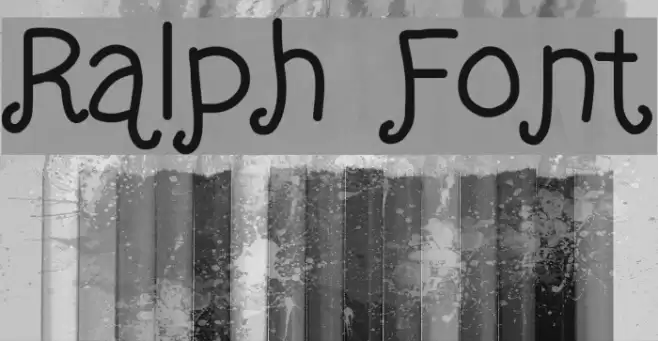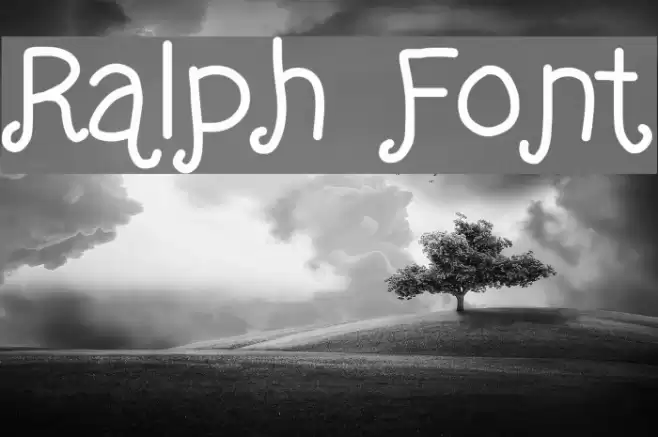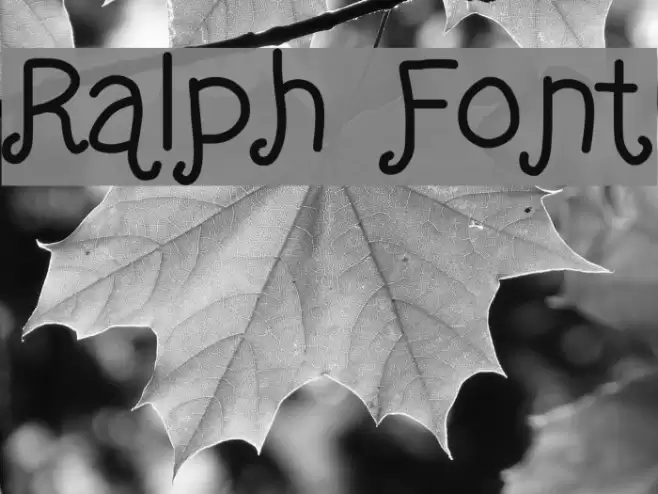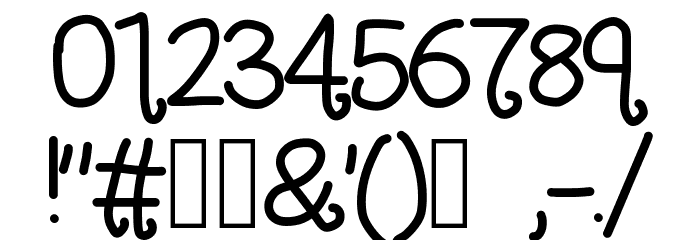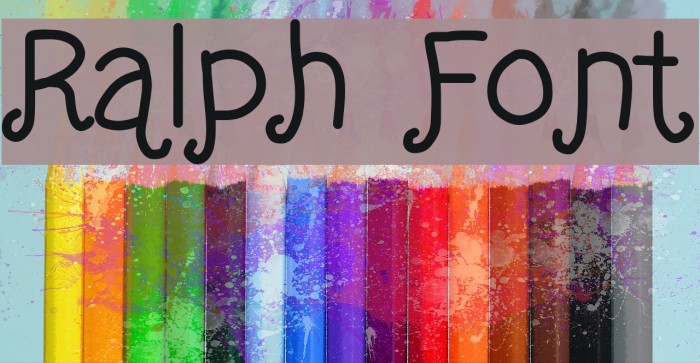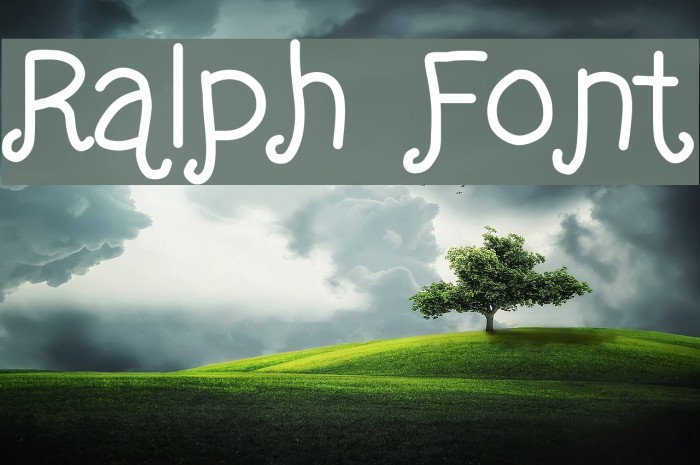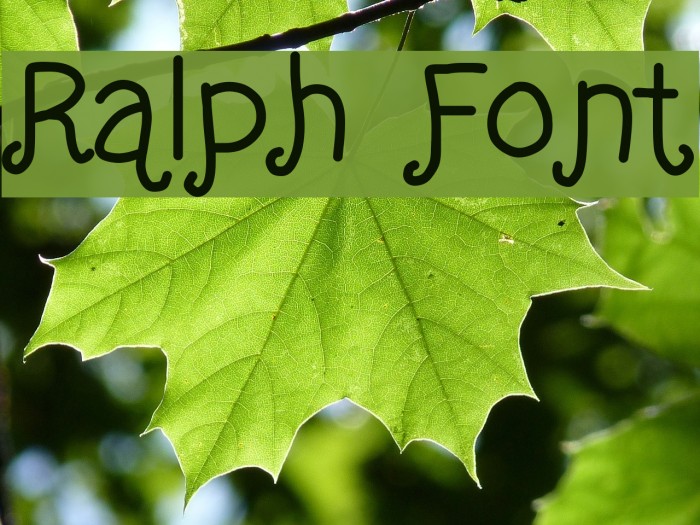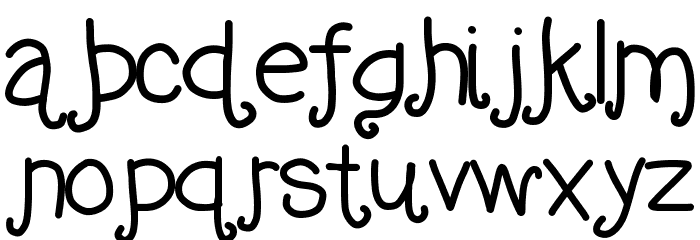
Ralph Font
Ralph Description
This font features a playful and whimsical design with curly, decorative elements at the ends of each character. The letters are rounded and have a hand-drawn feel, giving them a friendly and approachable appearance. The uppercase and lowercase letters maintain a consistent style, with the lowercase letters slightly smaller and more compact. The numbers and special characters follow the same playful theme, making the font suitable for creative and informal projects. The overall design is unique and eye-catching, perfect for adding a touch of fun to any text.
A playful, curly font with a hand-drawn, whimsical style from Curly fonts.
- Proposed Projects: Ideal for children's books, greeting cards, playful branding, and creative posters.
- Overall Style: Whimsical
- Use Case: Headlines, Logos, Creative projects